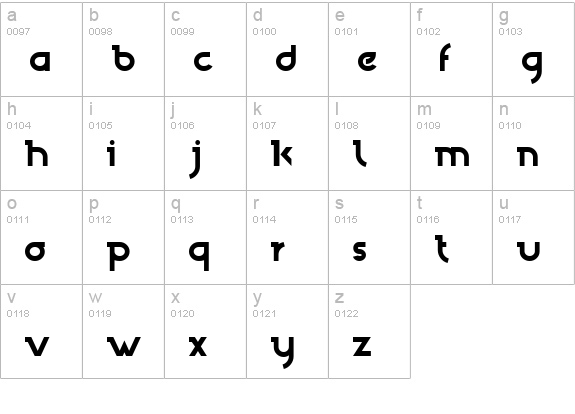
Finchley Font Details
Finchley font is a modern and elegant typeface that exudes sophistication and style. With its clean lines and sharp angles, Finchley is perfect for a wide range of design projects, from branding to editorial design. This versatile font is sure to make your text stand out and leave a lasting impression on your audience. The best part about Finchley font is that it is completely free to download at FontsMarket.com. This means that you can easily access this high-quality font without any cost, making it a fantastic choice for designers on a budget. Don't miss out on the opportunity to enhance your projects with the timeless elegance of Finchley font – download it for free today!